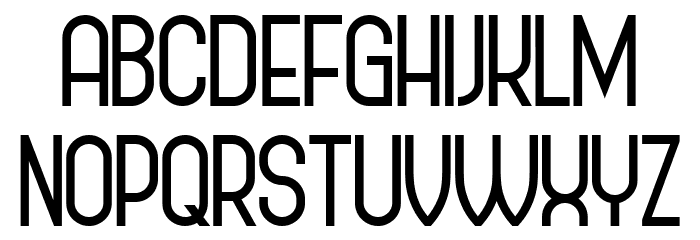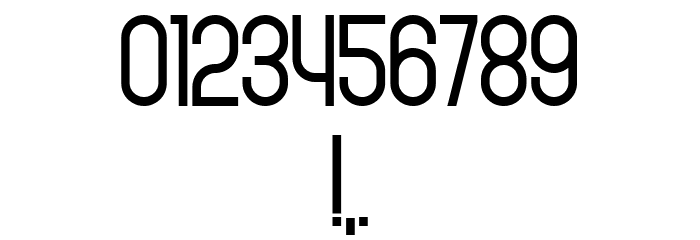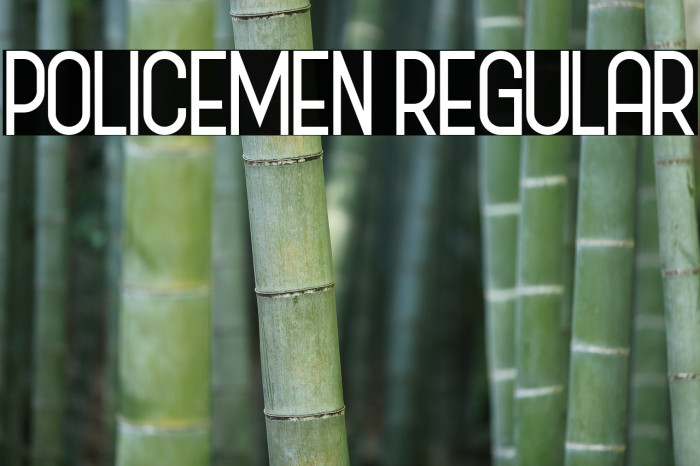
Policemen Regular Font
This font features a clean and modern sans-serif style with a geometric structure. The characters are tall and narrow, giving it a condensed appearance. The uppercase and lowercase letters maintain a consistent height, contributing to a uniform look. The numbers are similarly styled, ensuring readability and coherence across all characters. The font's design is minimalistic, with straight lines and subtle curves, making it suitable for contemporary designs. The spacing between characters is tight, which enhances its compact and efficient look. This font is versatile, suitable for various applications where a modern and sleek appearance is desired.
A modern, geometric sans-serif font with a tall, condensed structure.
- Proposed Projects: Ideal for branding, advertising, posters, and digital interfaces where a modern aesthetic is needed.
- Character Spacing: Tight
- Use Case: Headlines, Logos, Digital interfaces